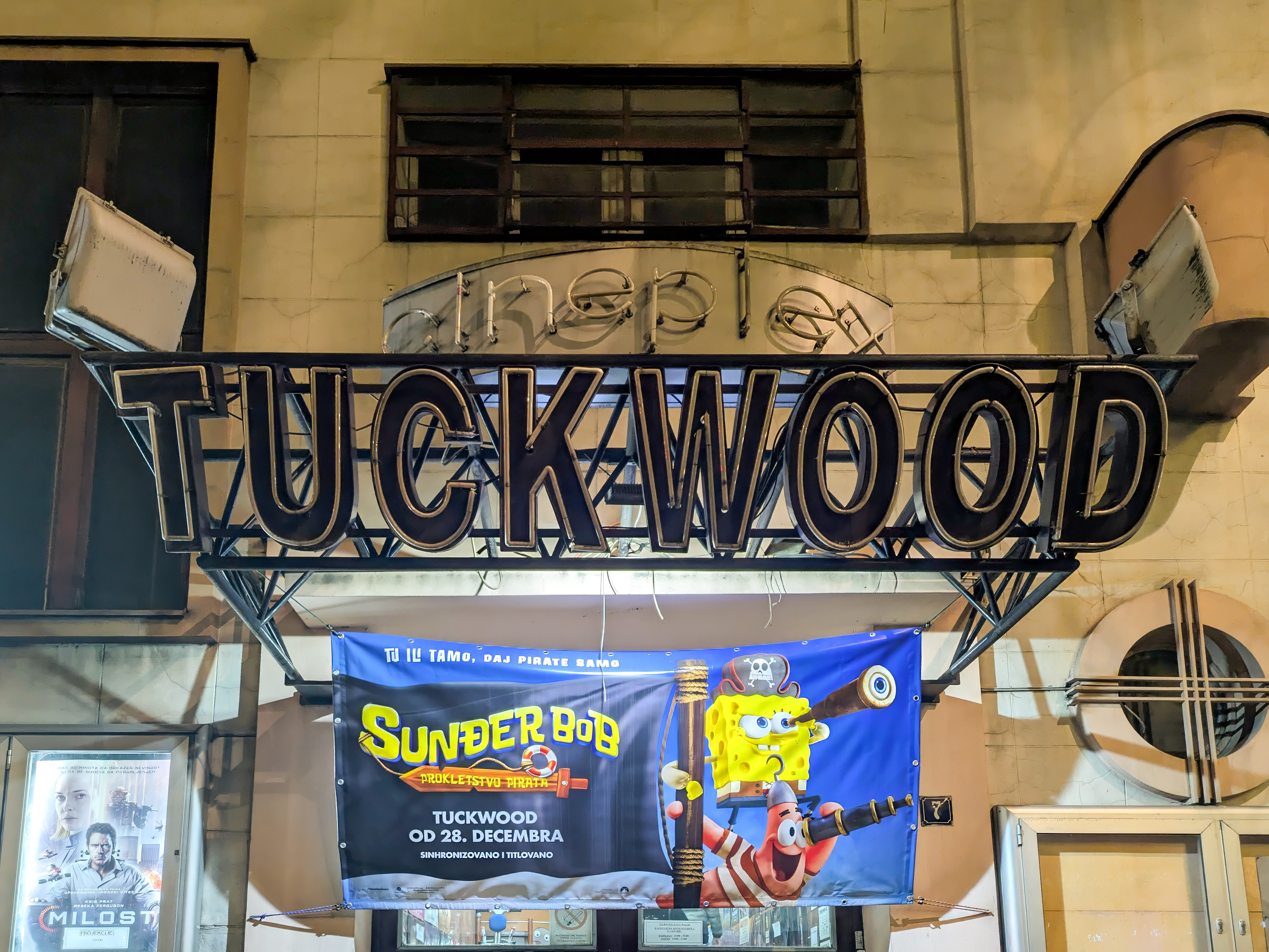
Tuckwood
Tuckwood cinema was opened on February 14, 1999 - just a month before the NATO bombings of Serbia started. It was the first film house that opened in Belgrade after the collapse of Yugoslavia.
The name 'Tuckwood' combines the owner's company name with a nod to the California film industry. Tuck Vision was the largest film distributor in Serbia at the time.
The font of the front sign looks very similar to the famous sign on the hills of Hollywood.